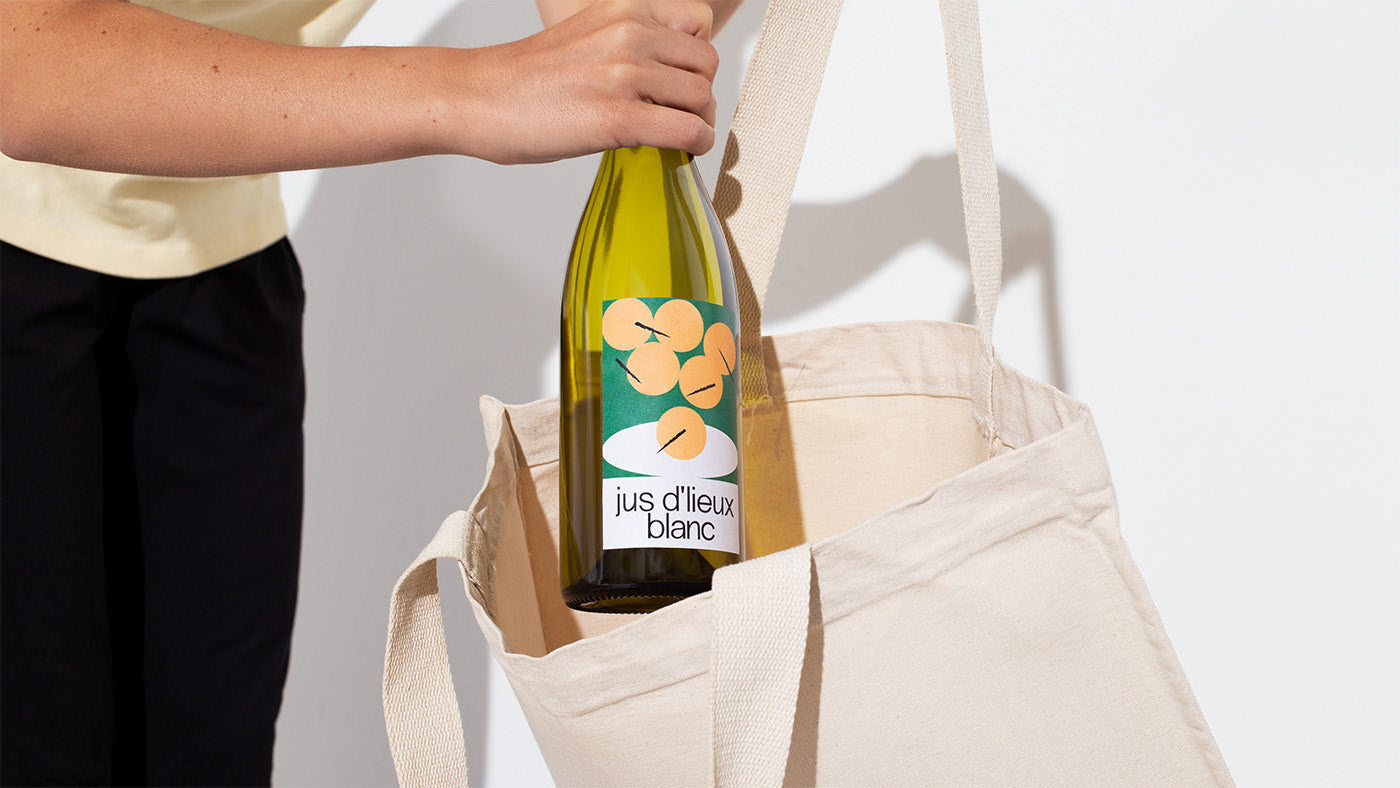
Vinvinvin - Raw Wine Bar
vinvinvin’s identity, designed by Nother Studio, reflects the bar’s ethos: ‘You don’t need to know wine to enjoy it’. The graphic language revolves around the adventures of Jean Jus, a ‘bon vivant’ character illustrated by Catherine Potvin.
The jovial and silly nature of the illustrations, combined with the simplicity of the typography, makes the art of wine feel approachable and fun. There’s no room for any pretentiousness at vinvinvin. No Château or Domaine, just good wine and good people.